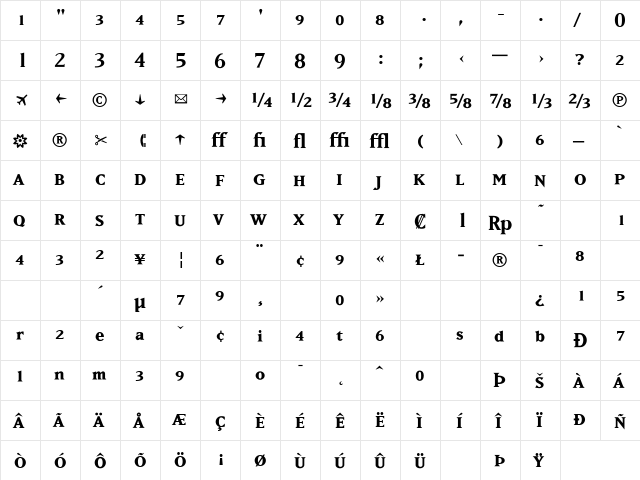
MatrixFractions Bold
Design Context for MatrixFractions Typeface
MatrixFractions takes a measured approach to typography — its balanced proportions and neutral character make it a reliable workhorse for both digital and print work. Its bold stroke weight gives it real presence on the page.